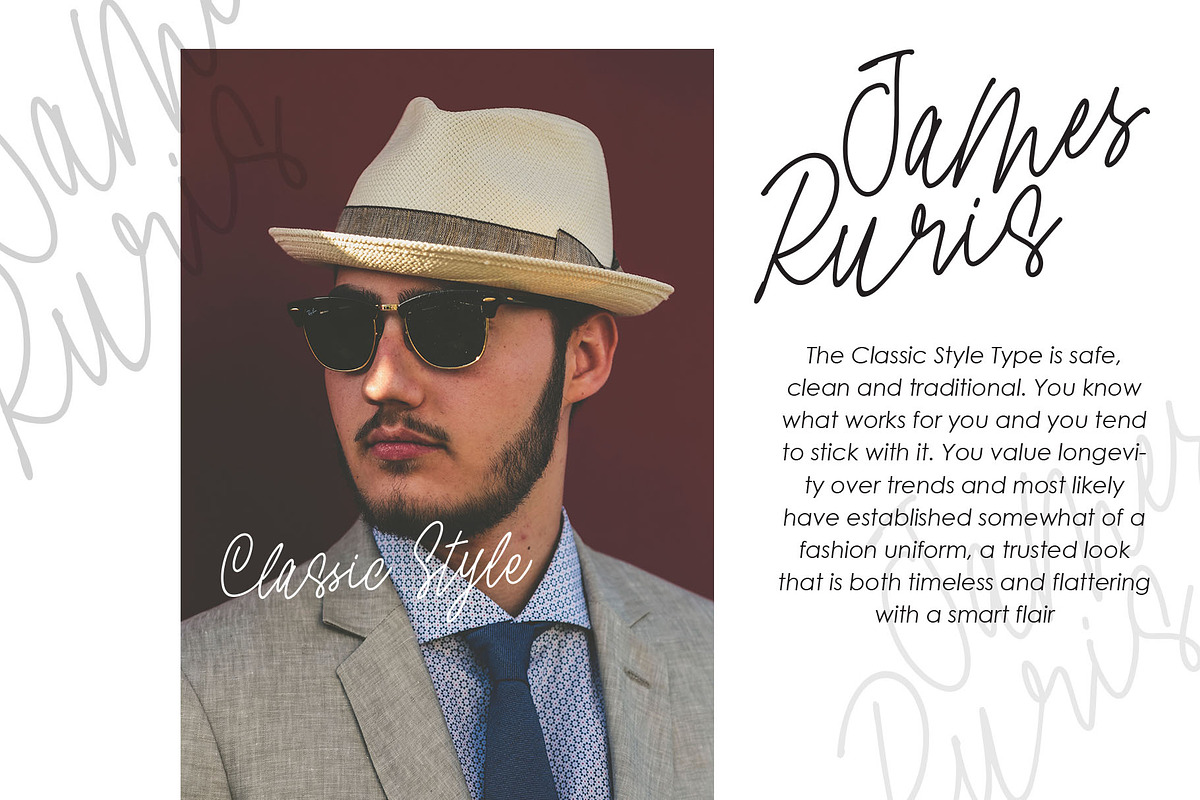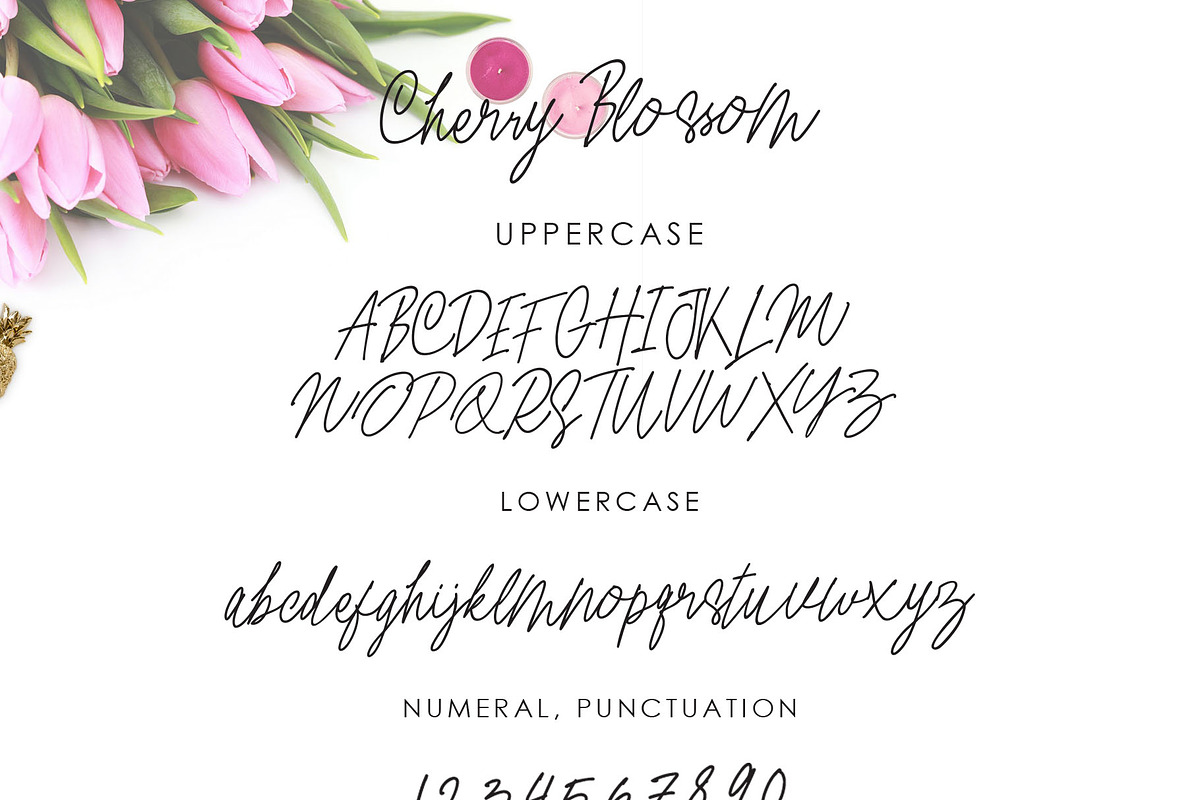
Cherry Blossom
Cherry Blossom - a new fresh handmade calligraphy font, is a clean, bouncy, beautiful font, simple and funny. Hesterica can be incorporated into many designs including quotes text, wedding invitations, posters and you can create custom cards to give to your friends and family.